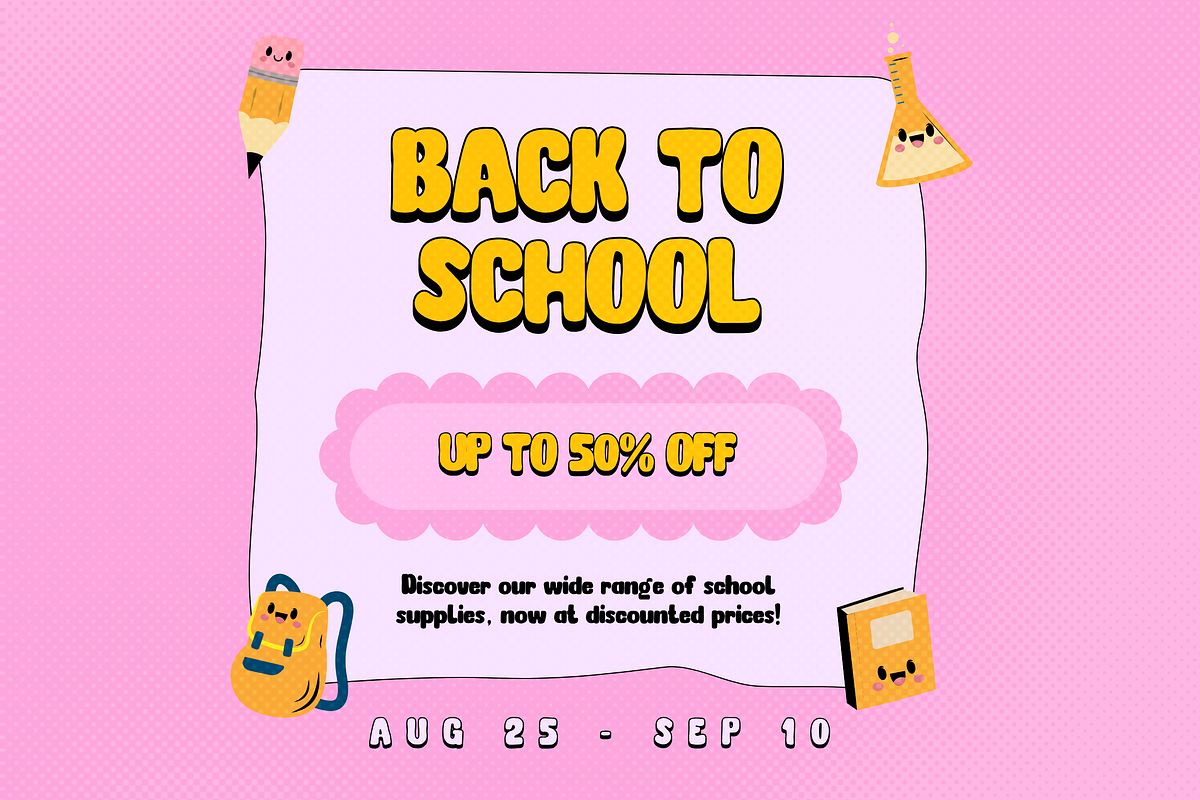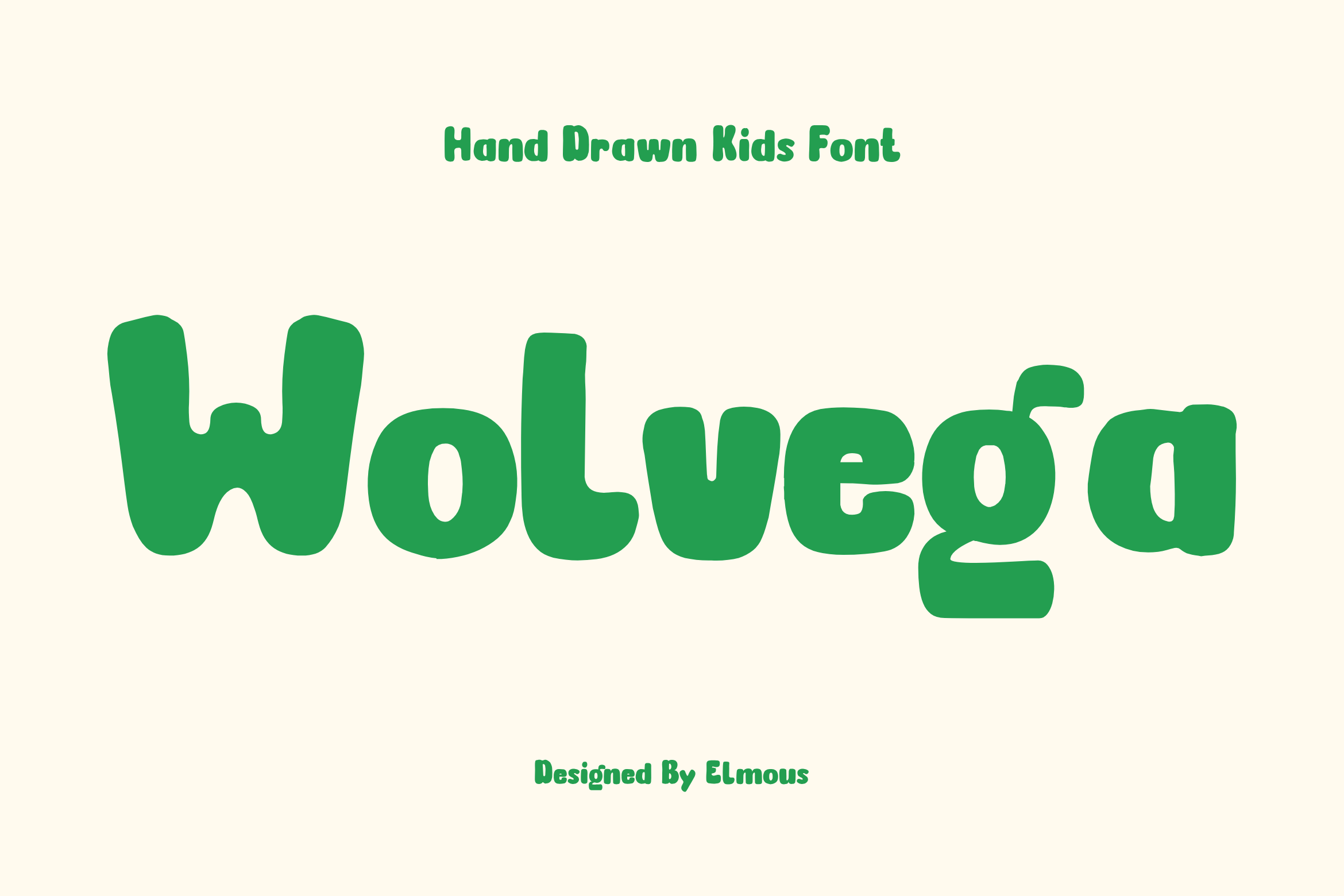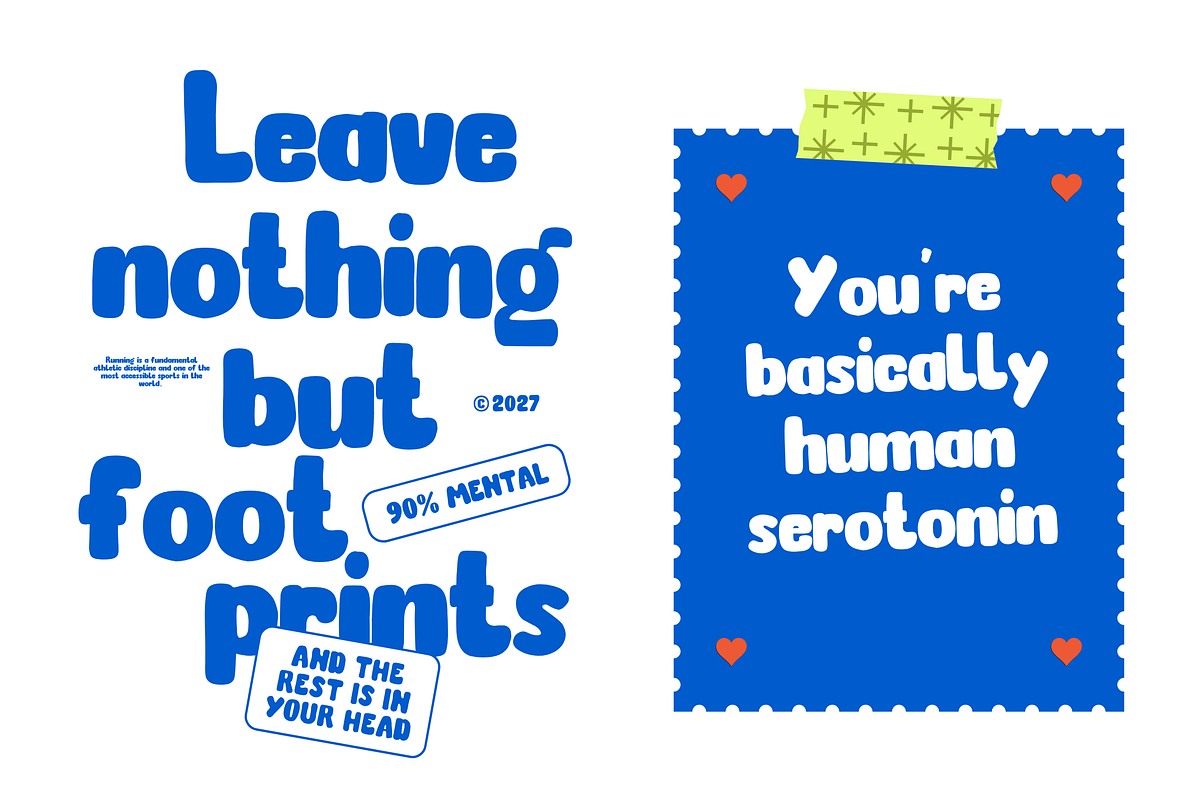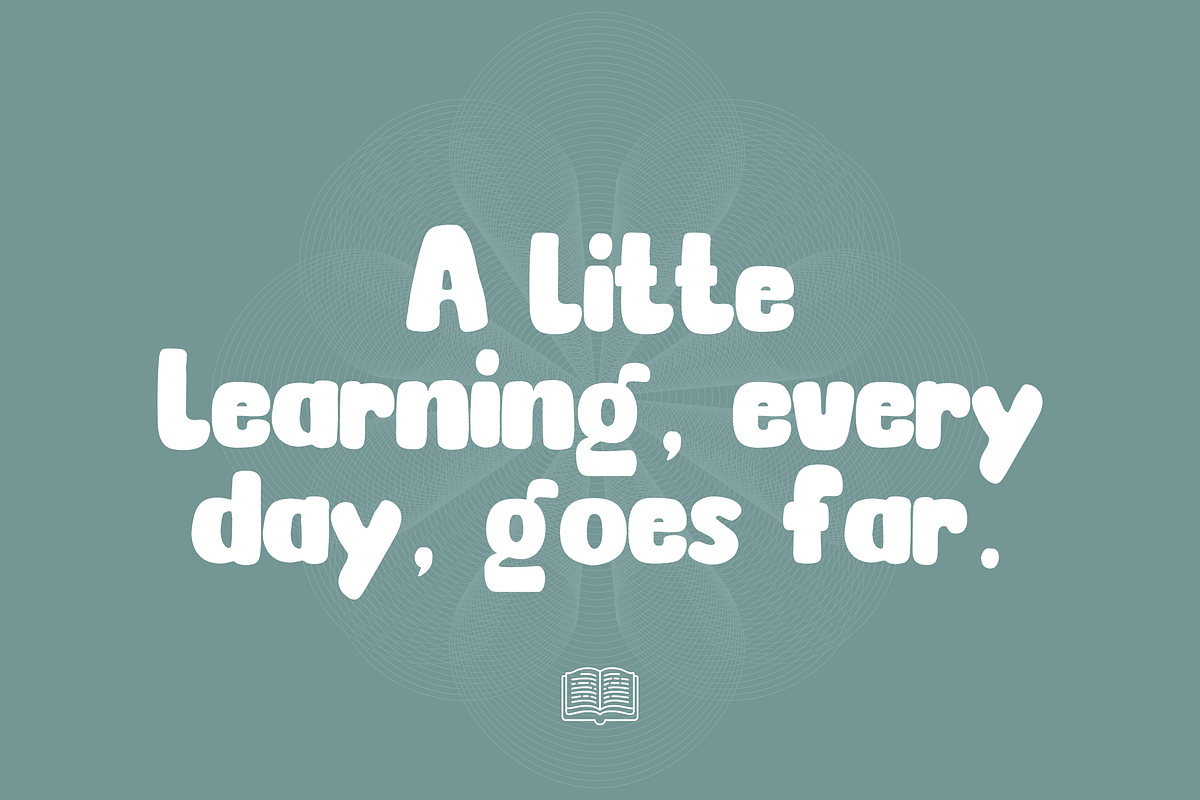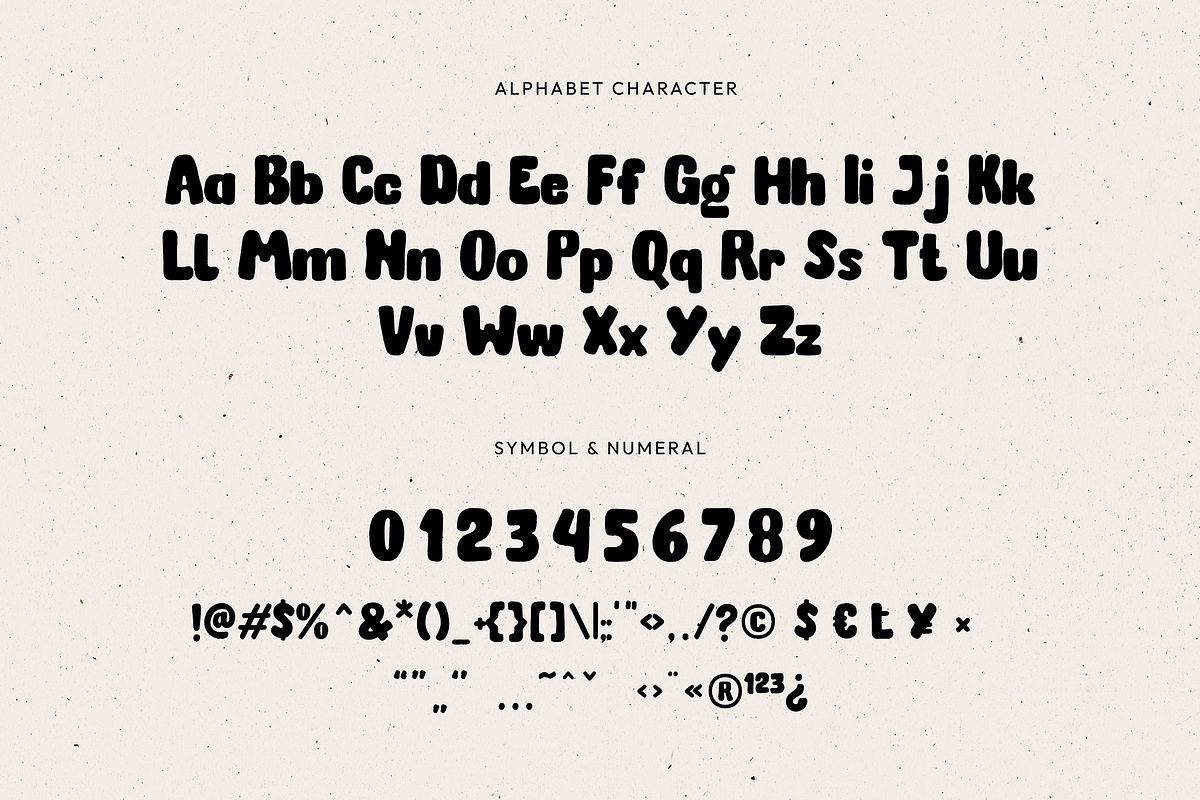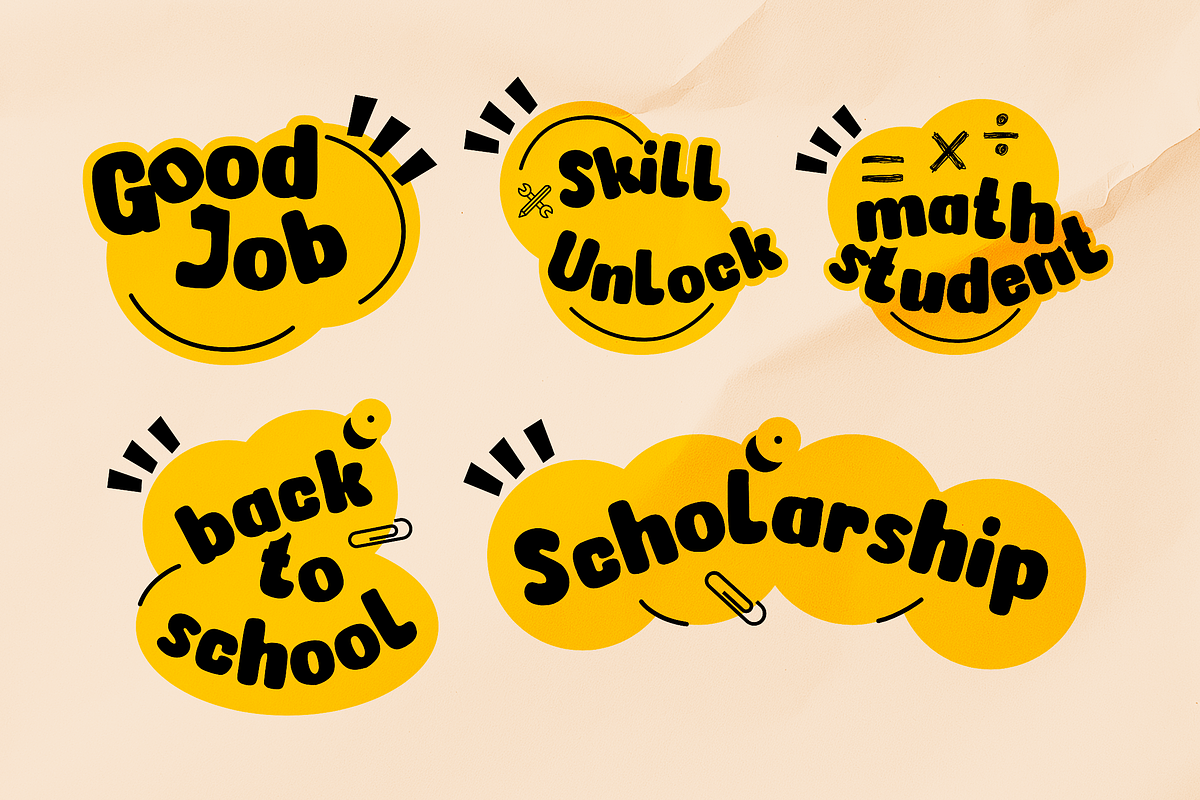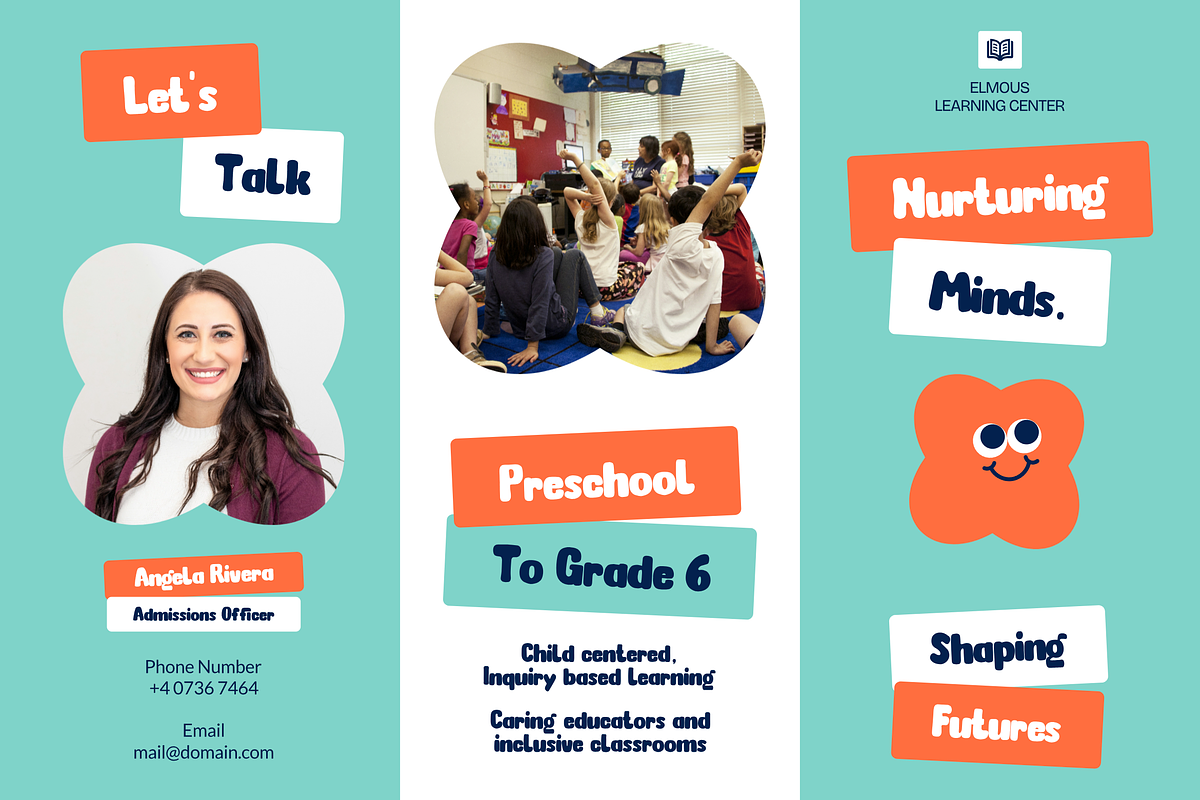
Wolvega - Hand Drawn Kids Font
Wolvage is a friendly, chunky, and cheerful handwritten display font. With its soft edges and organic, playful shapes, it brings an approachable, energy vibe to any design, making it ideal for children's products, educational materials, and fun branding.
This font ideal for:
Education and School: Worksheets, preschool flyers, reward stickers, "Back to School" promotional banners, and educational badges
Children's Products and Publishing: Storybook titles, toy packaging, kids' apparel, and game UI text.
Creative Media: Social media quote graphics, stickers, event posters, and playful logo marks.
Uppercase and Lowecase Characters.
Numerals and Punctuations.
Alternates and Ligatures.
Multilingual Support.